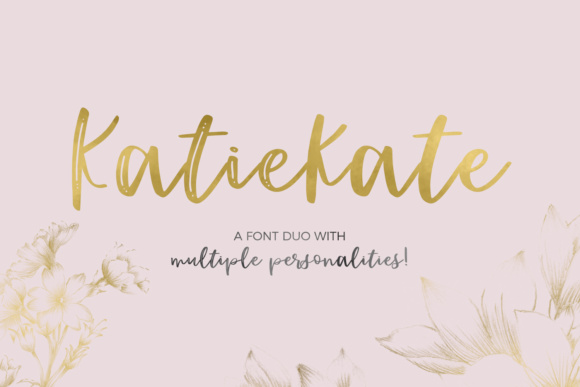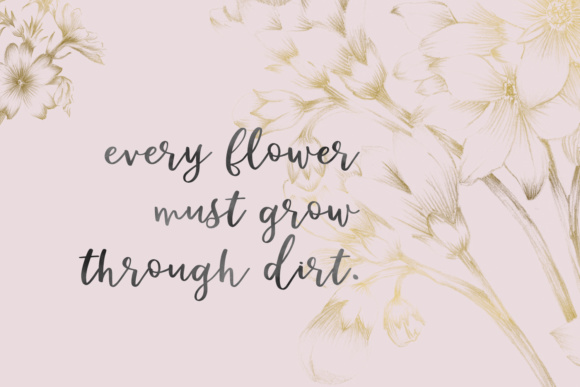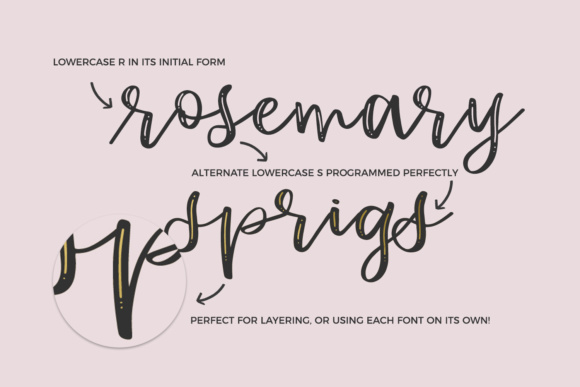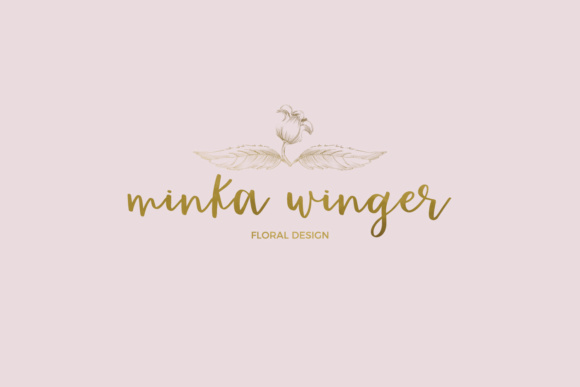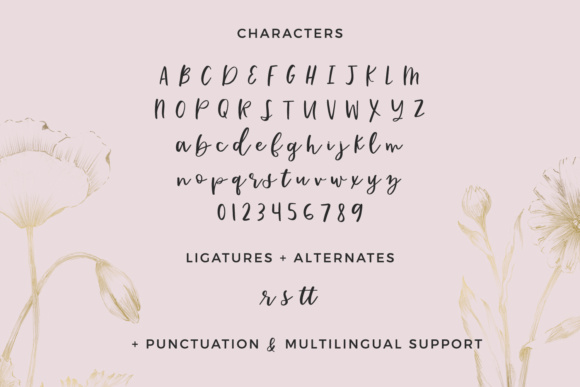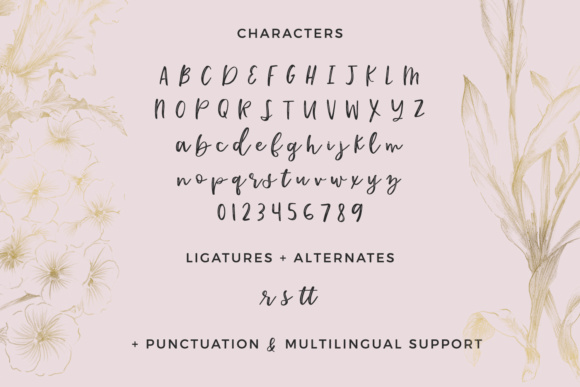
Katiekate Font
About Katiekate Font
Katiekate is a beautiful, multifaceted script font; with two different versions, this font offers the opportunity to create fun and casual designs, or more romantic and serious ones. This font is layerable, and can give your work an appealing and gorgeous look.